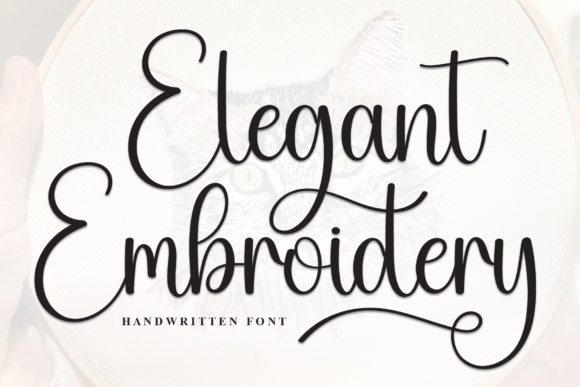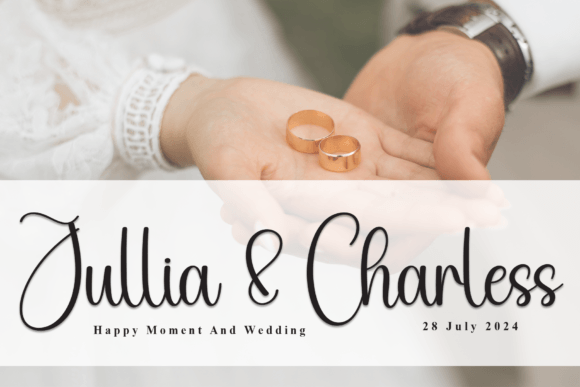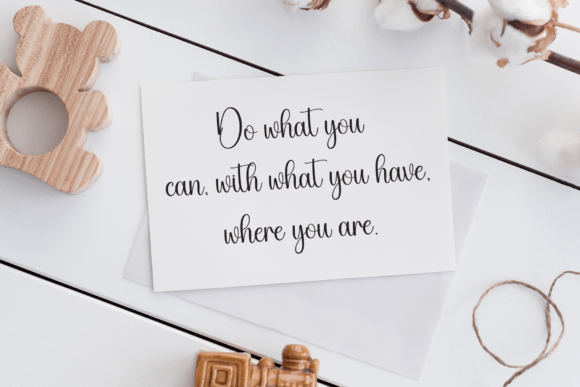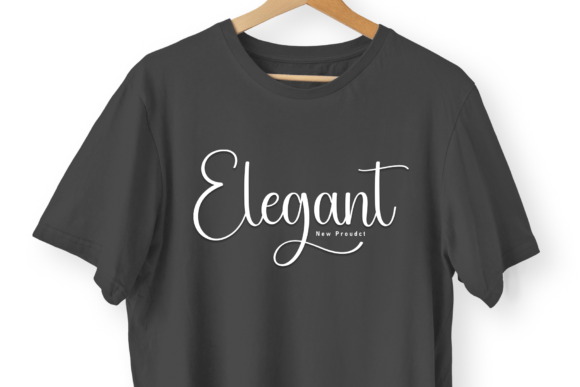
Elegant Embroidery Font
About the Elegant Embroidery Font
Welcome to the world of Elegant Embroidery Font, a typeface that will inspire your next great project. Elegant Embroidery is a stylish handwritten script font that exudes elegance and charm with its flowing, graceful curves. Perfect for invitations, logos, and branding, it adds a personal and sophisticated touch to any design. The font’s delicate strokes bring warmth and creativity to your projects.
Elegant Embroidery thrives in applications requiring a touch of refined hand-crafted aesthetic. It excels in short text settings such as logos, headlines, invitations, and short quotes within larger designs. Its delicate nature makes it unsuitable for body text or lengthy paragraphs, where readability would suffer.
Consider pairing it with a clean sans-serif like Montserrat for a contemporary feel, or a classic serif such as Garamond for a more traditional, balanced look. For a playful contrast, a geometric sans-serif such as Futura could be effective.
The font’s core personality is sophisticated yet approachable, conveying elegance without being overly formal. Brands emphasizing luxury, handcrafted goods, or personal services will find it particularly effective.